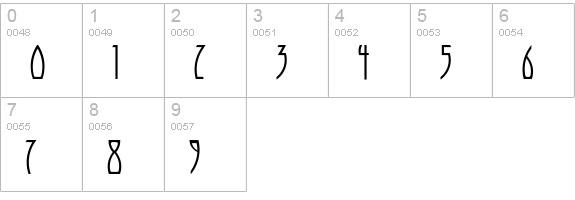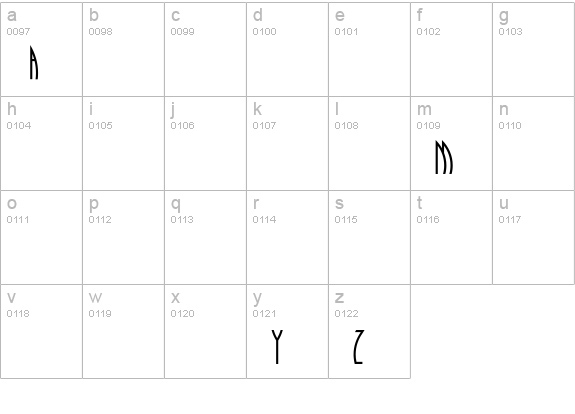
Runy-Tunes Font Details
Runy-Tunes font is a delightful and whimsical typeface that captures the essence of fun and creativity. With its playful curves and unique design, this font is perfect for adding a touch of whimsy to any project. Whether you're working on a poster, greeting card, or logo, Runy-Tunes font will bring a sense of joy and individuality to your design. The best part? Runy-Tunes font is available for free download at FontsMarket.com. So go ahead and bring a touch of playfulness to your next project with this charming and lively font. Let your imagination run wild with Runy-Tunes!